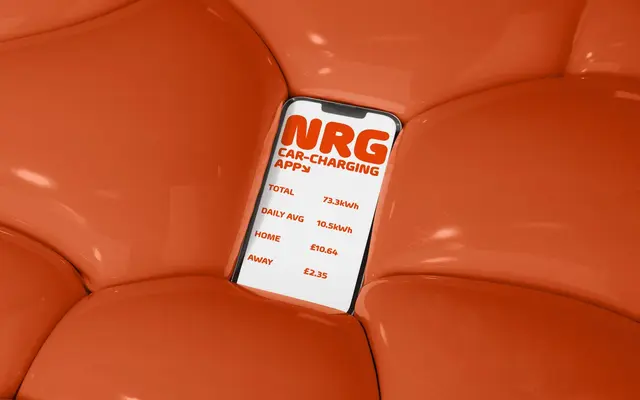
A rounded geometric sans inspired by woodworking craft and VAG Rounded, offering 16 fonts across eight weights with italic companions.
Drawing from the lineage of VAG Rounded, Planer adds contemporary geometry to produce a typeface that sits between warm and precise. Version 2.0 introduced an additional bold weight for headline work, improved optical compensation for small text, and ten alternative characters alongside OpenType features including circled numbers, case-sensitive forms and arrows. At 16 fonts, the family has enough range for identity and editorial use where a softer geometric voice is needed.
Planer is a geometric sans with rounded terminals, drawing explicitly from VAG Rounded and infusing that tradition with contemporary geometric construction. The rounded corners and warm geometry place it firmly in the rounded geometric sans subcategory.